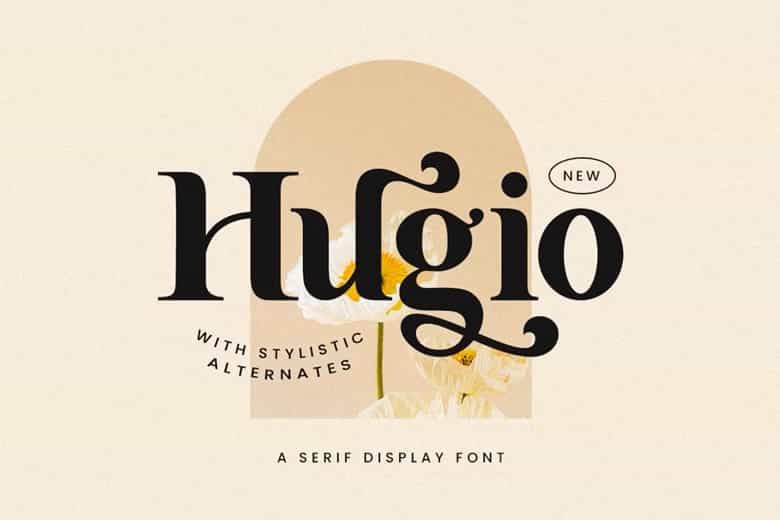
Hugio is a casual serif display typeface that looks especially clean. Its organized and attractive set of letters makes this a great typeface for any design style. It’s PUA encoded, you can conveniently use all the glyphs and swashes from the typeface. Choose the style you love and try using it to design something wonderful!